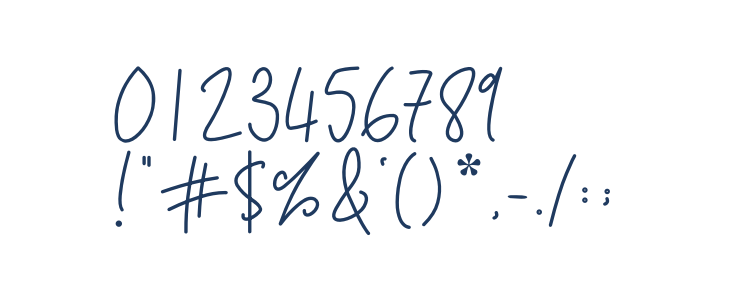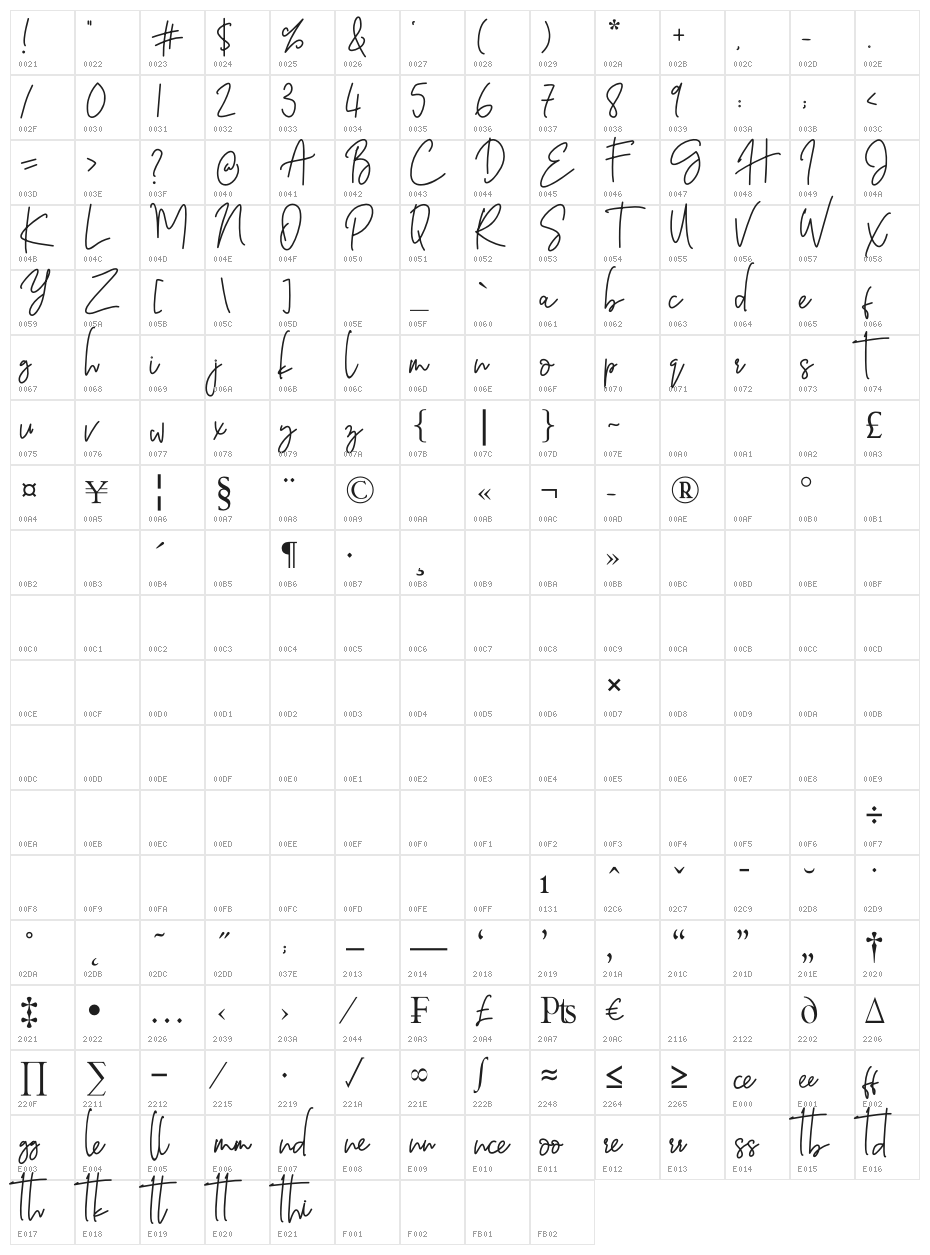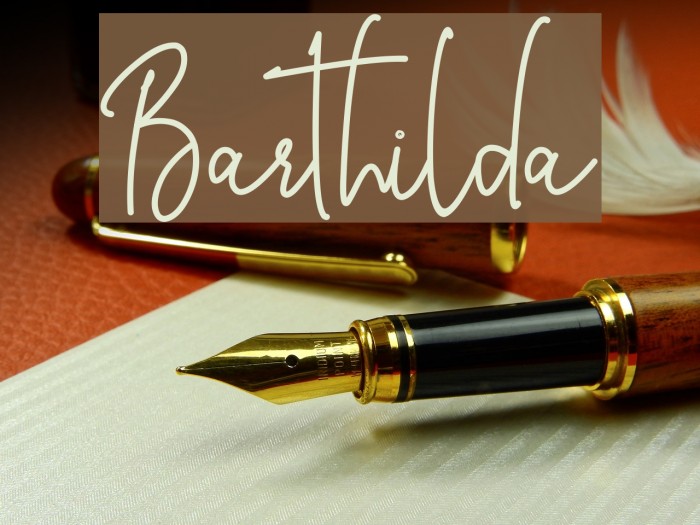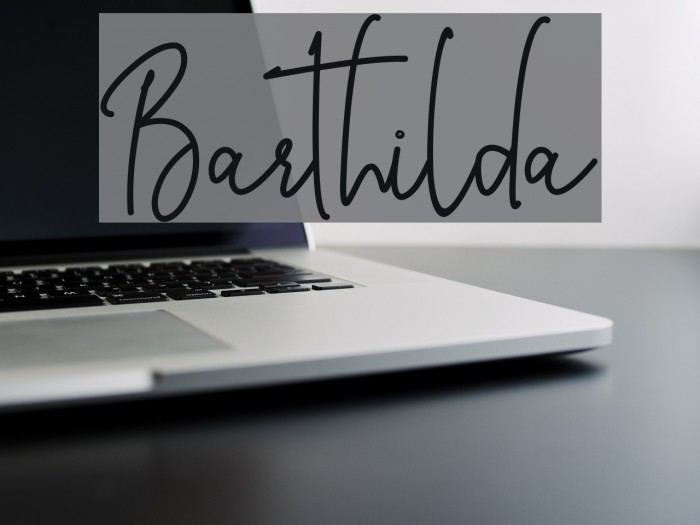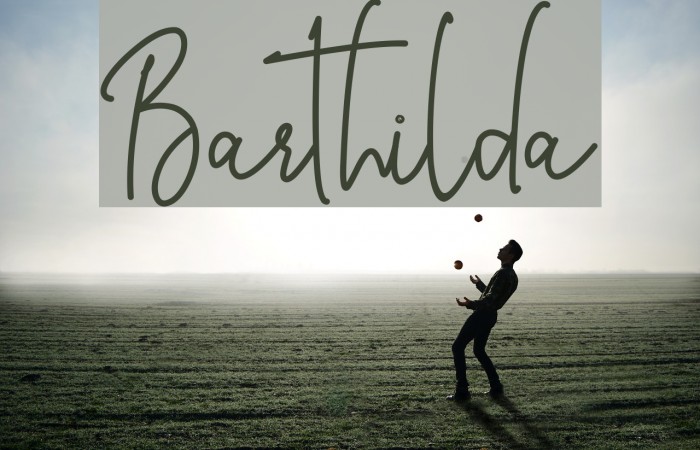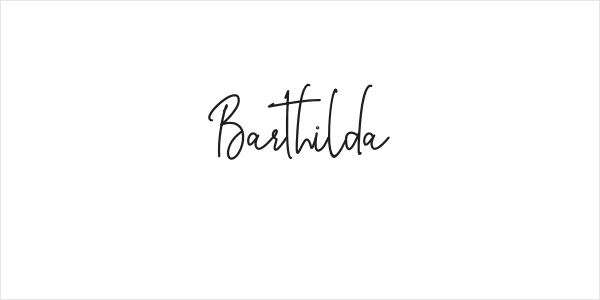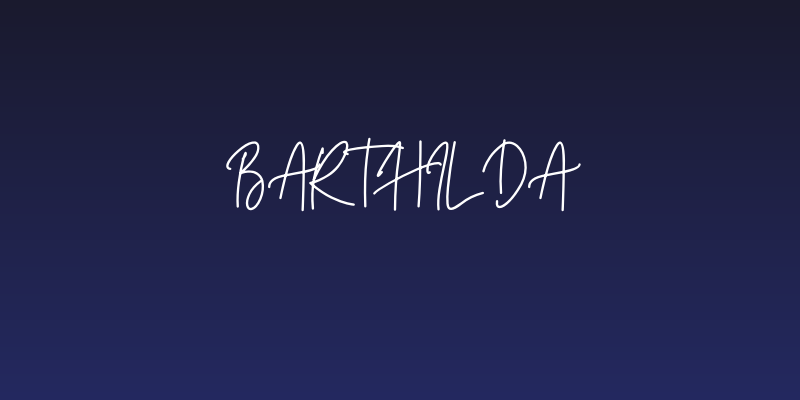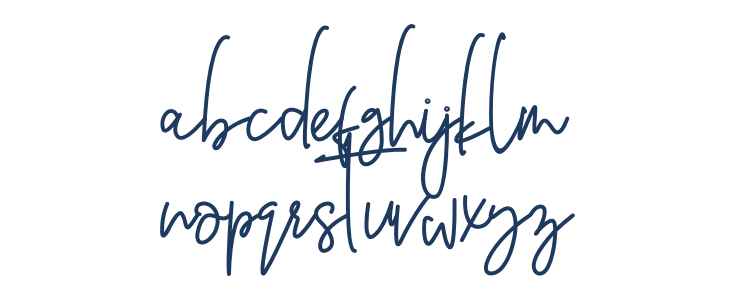
Barthilda Font
Barthilda Description
This font exudes a casual, handwritten style with a playful and dynamic flow. The letters are characterized by their fluid, cursive strokes that mimic natural handwriting. The uppercase letters maintain a consistent height, while the lowercase letters exhibit a slight slant, adding to the informal aesthetic. The numbers and special characters are crafted with the same lively energy, ensuring a cohesive look across all elements. The overall appearance is both approachable and stylish, making it suitable for projects that require a personal touch.
| Use Case | Logos, Invitations, Social Media |
| Proposed Projects | Ideal for personal branding, greeting cards, invitations, and social media graphics. |